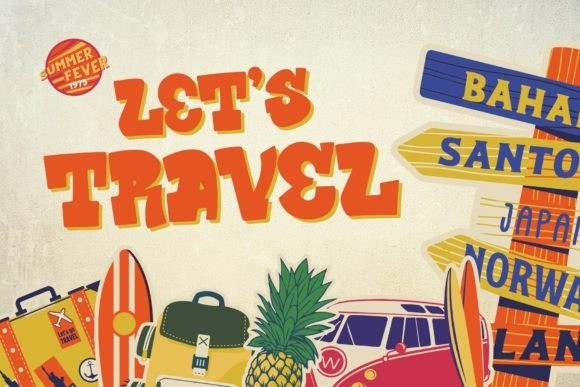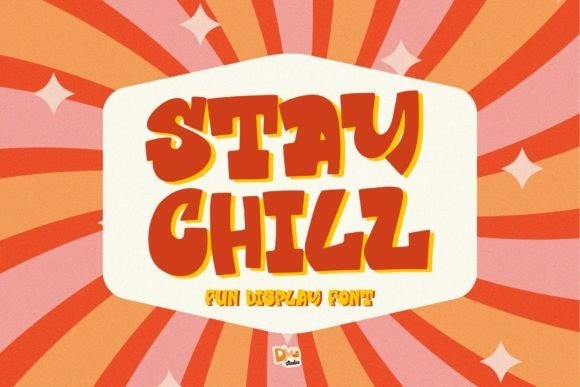
Stay Chill Display Font
Stay Chill Display Font is a fun typeface. It’s a graffiti-style slab serif font that will be great for any design or even for your collectible asset.